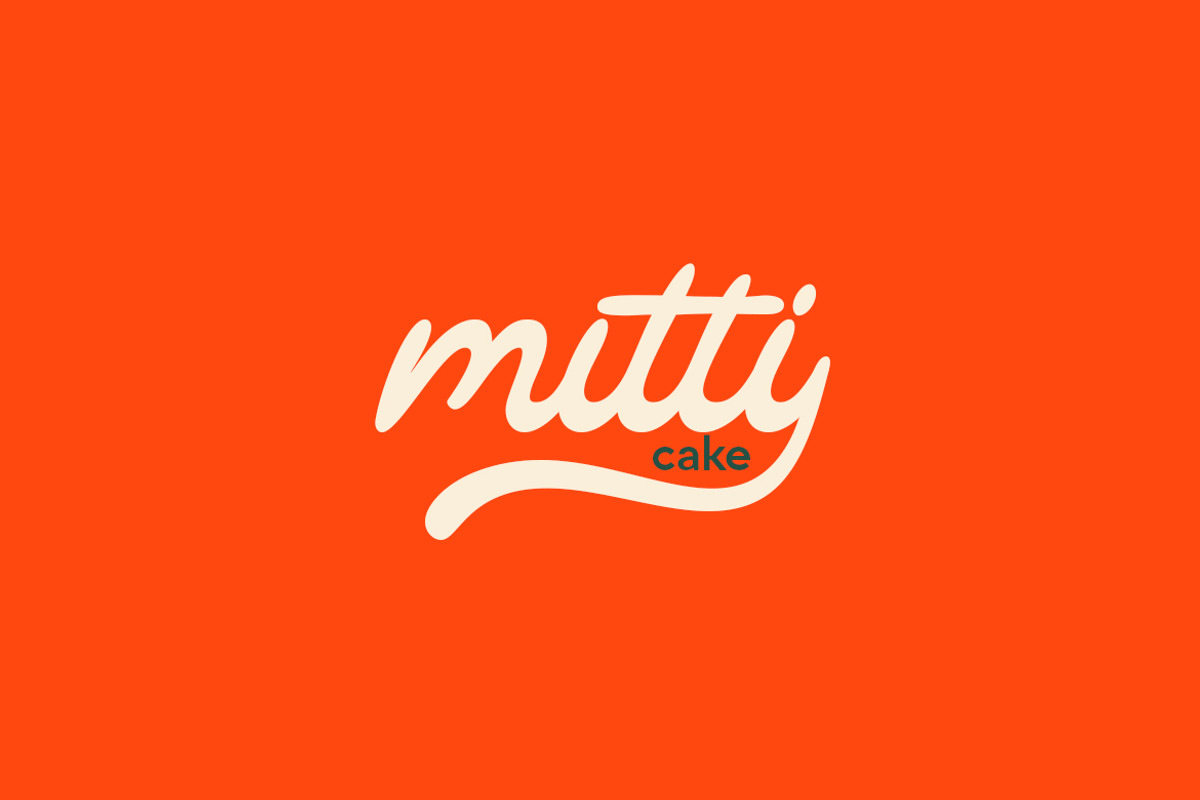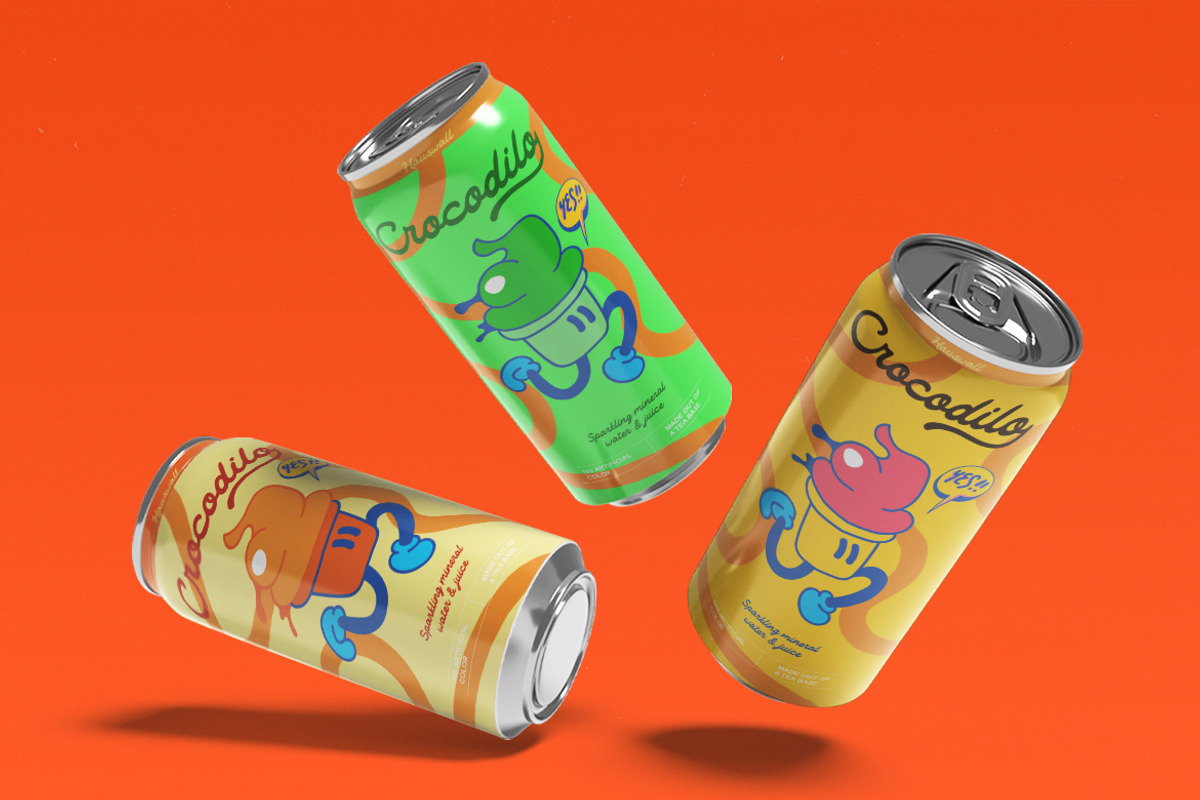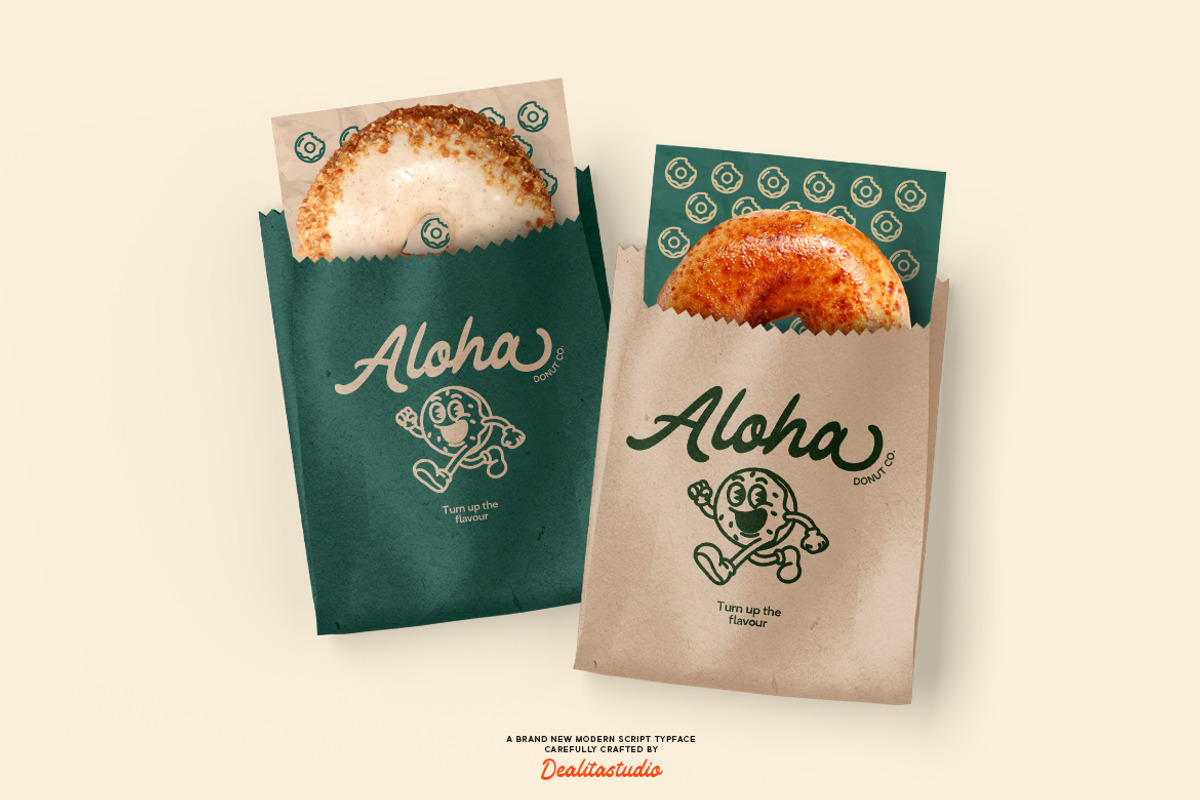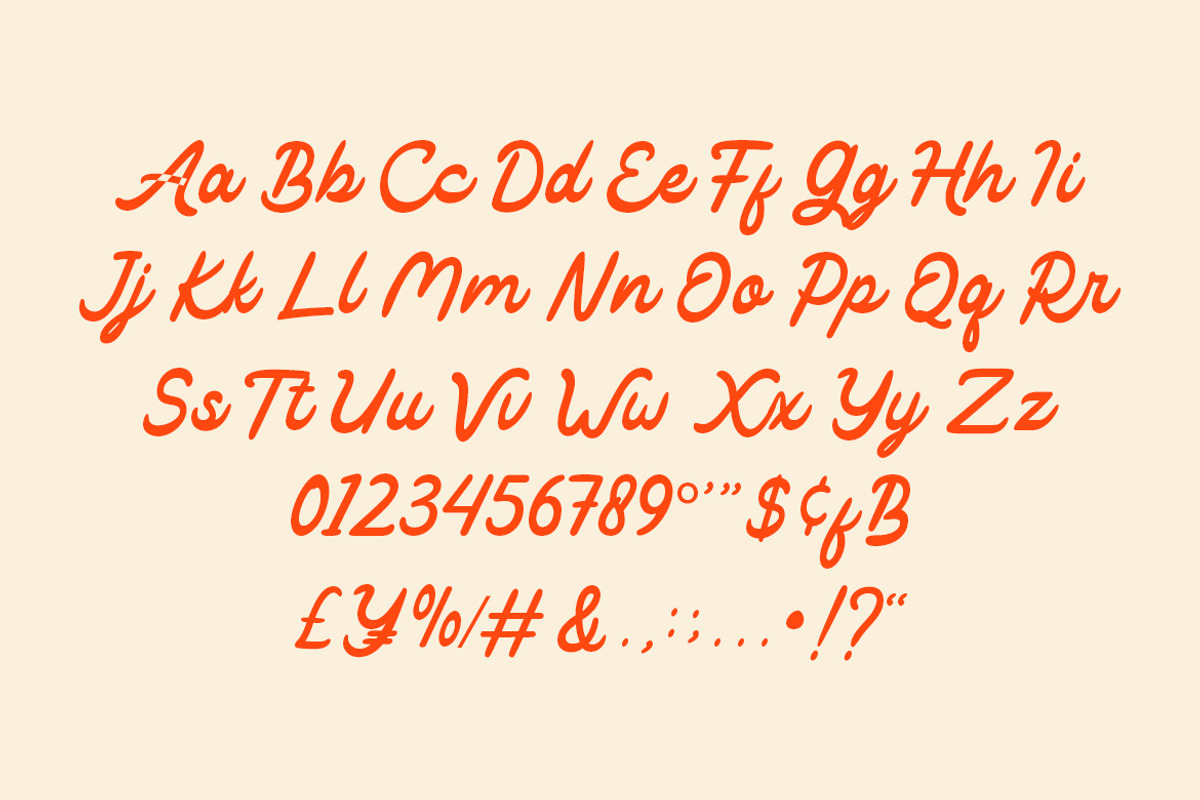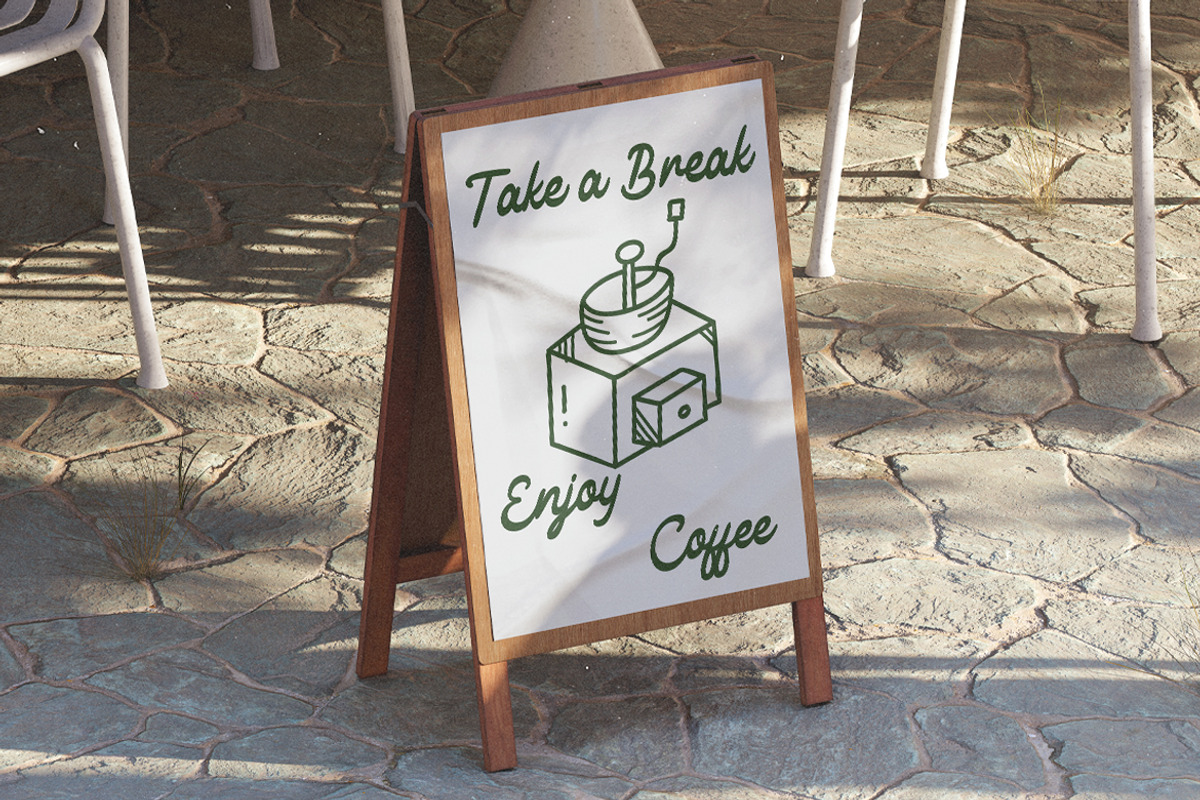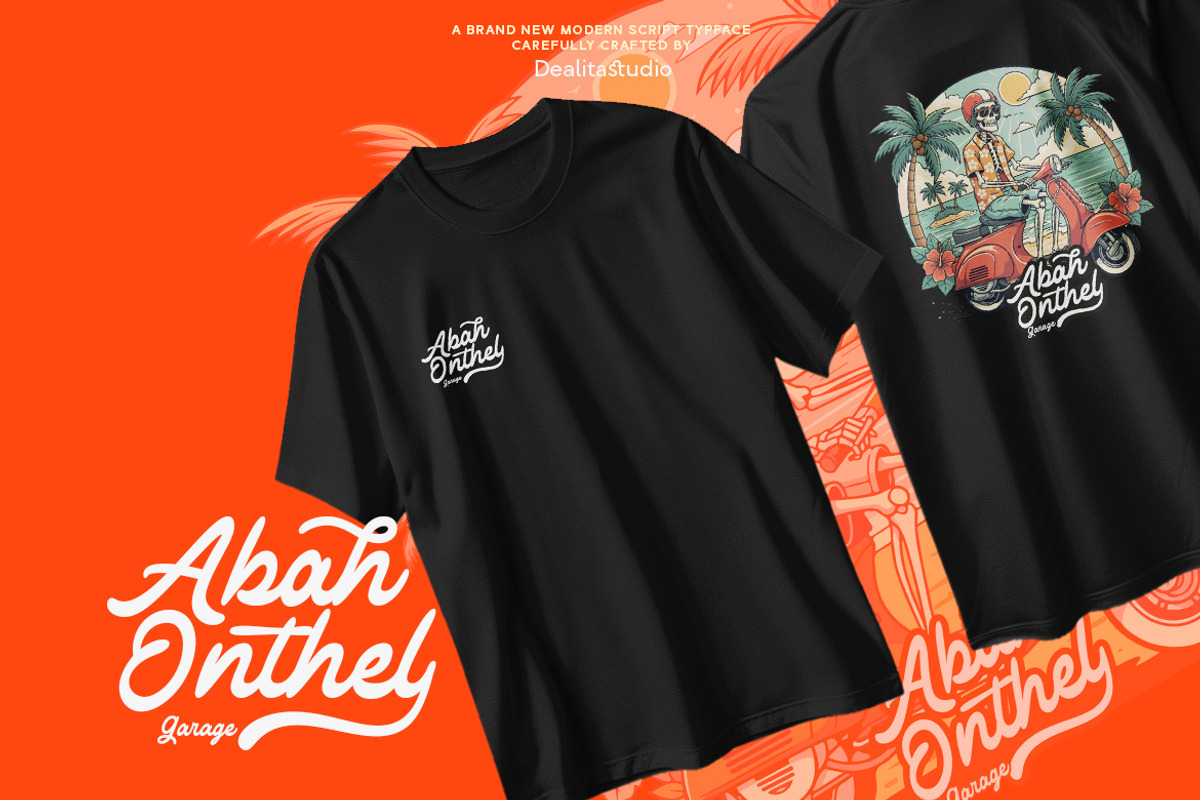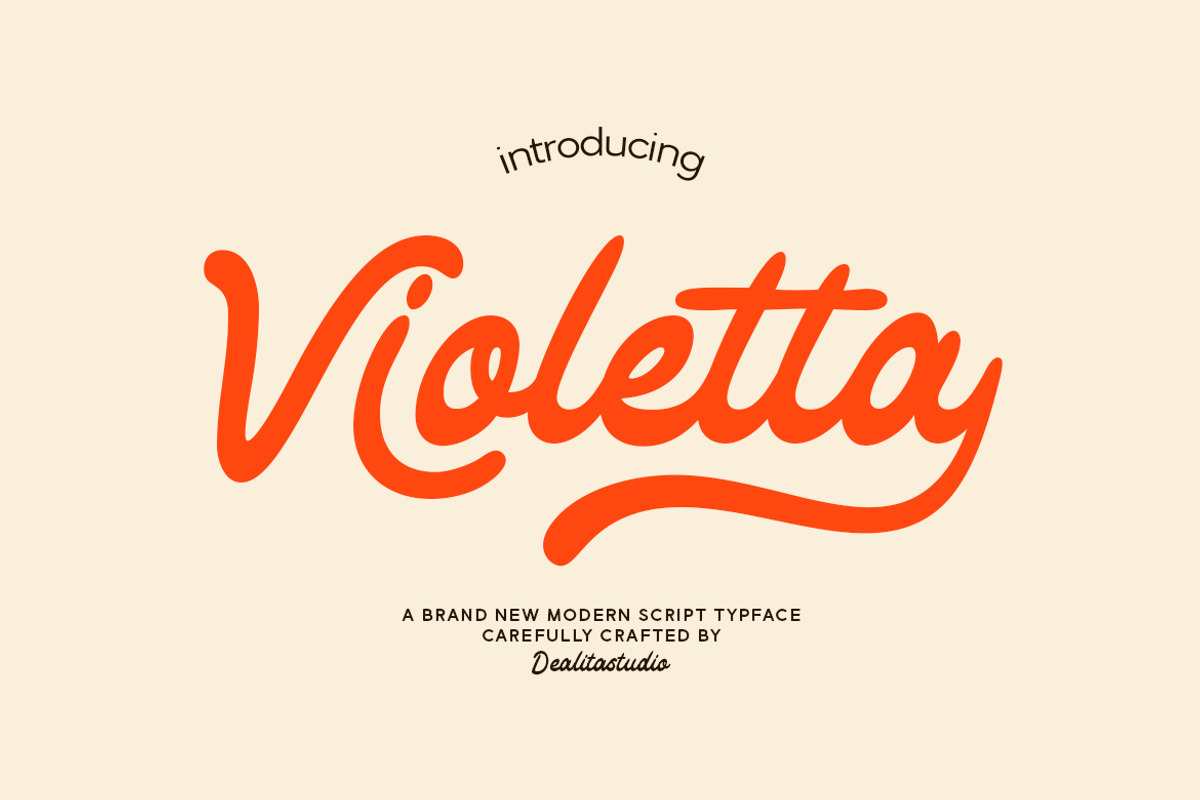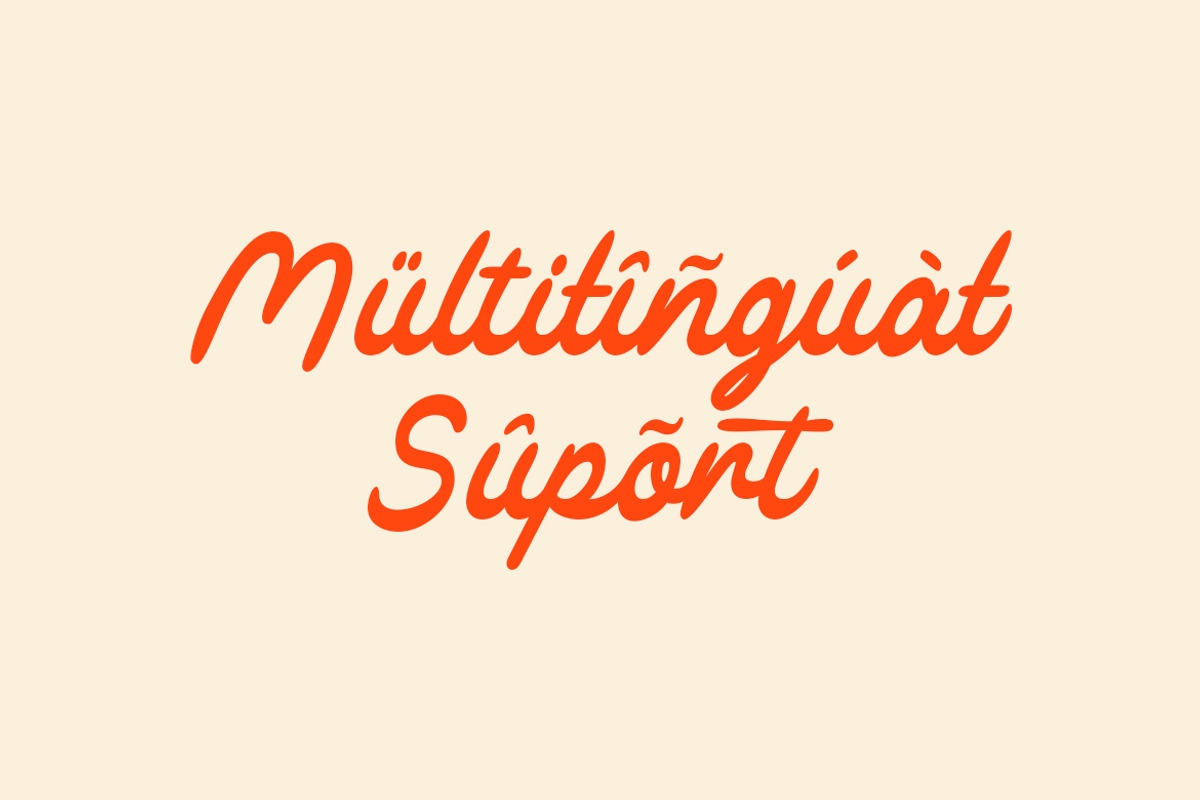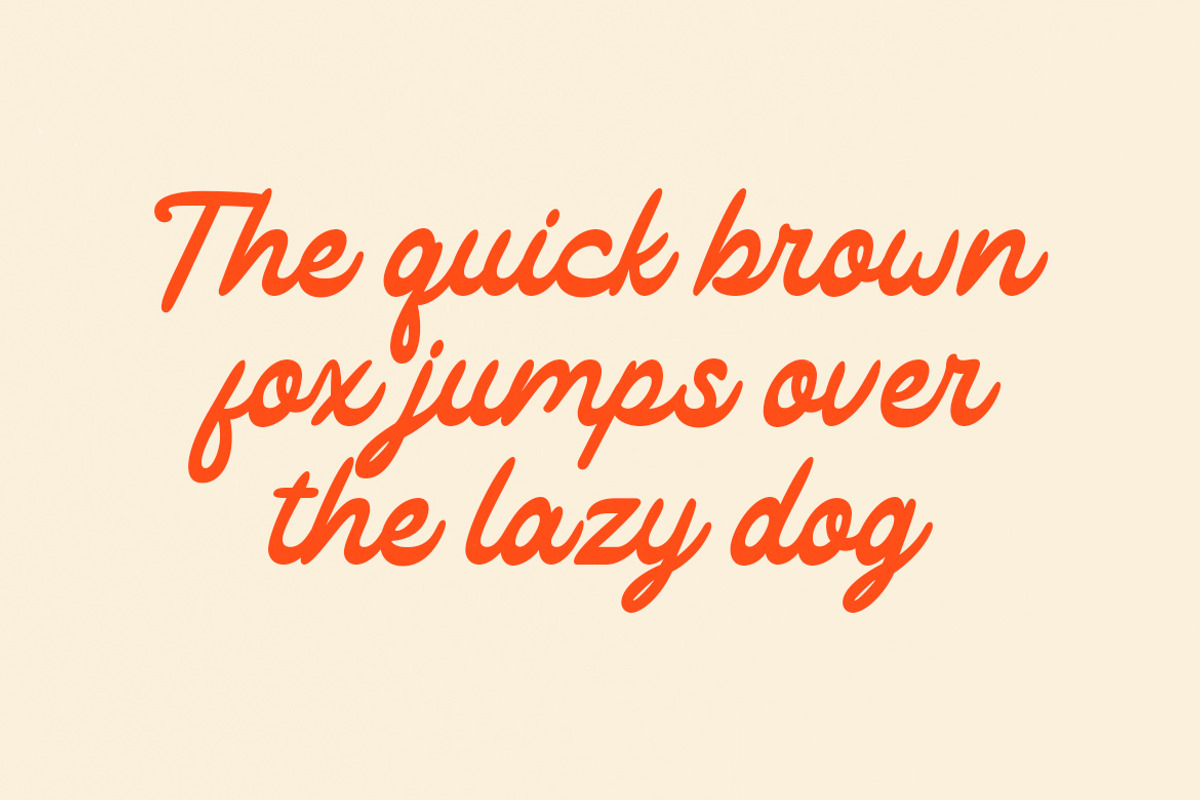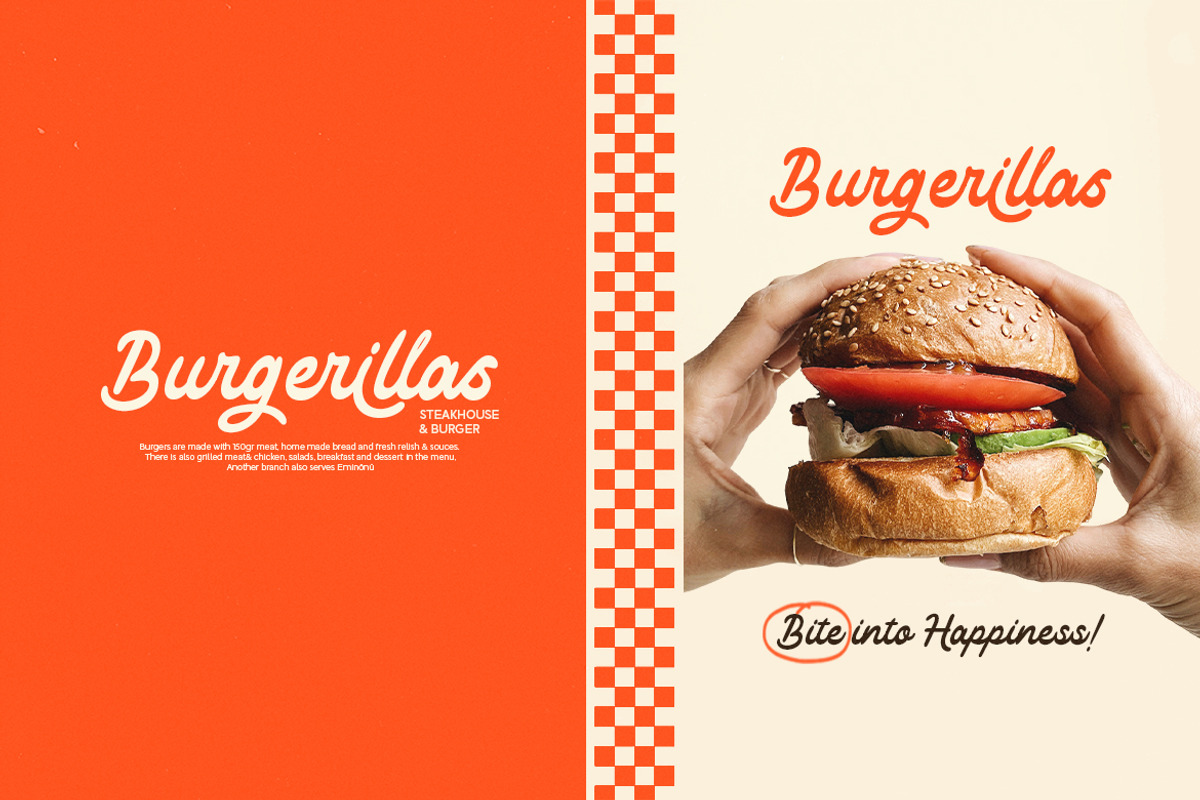
Violetta - Bold Groovy Retro Script
Violetta — Bold Groovy Retro Script Violetta is a thick, dynamic retro script engineered for high-impact display and authentic nostalgia. Built with a heavy, playful flow and smooth connections, it features 3 Dedicated Stylistic Sets and decorative Swashes—giving designers the power to create bespoke, hand-lettered branding in seconds.
Best For:
- 70s & 80s Nostalgic Branding
- Food & Beverage Packaging
- Groovy Social Media Headlines
- Vintage Posters & Apparel Design
Technical Specs:
- 257 Glyphs | 15 Dynamic Ligatures
- 3 Stylistic Sets (ss01, ss02, ss03)
- Decorative Swashes & Alternates